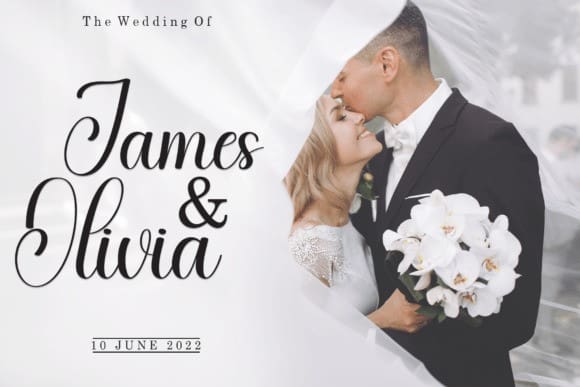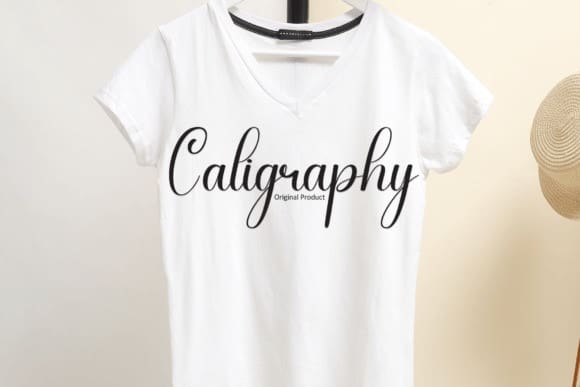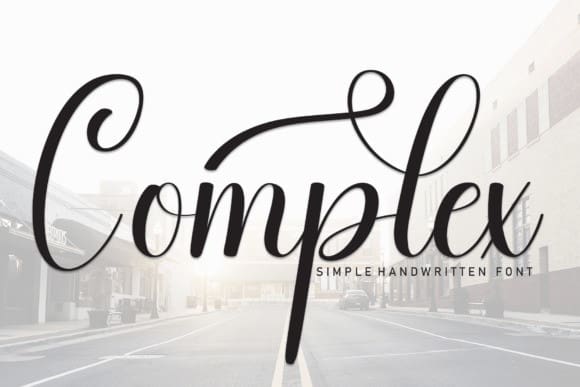
Complex Script Font
Complex Script Font, is a captivating script and handwritten typeface that embodies depth and intricacy. With its elaborate swirls and intricate details, it adds a sense of sophistication and elegance to any design. Perfect for branding, invitations, and projects that require a touch of refined artistry and complexity.